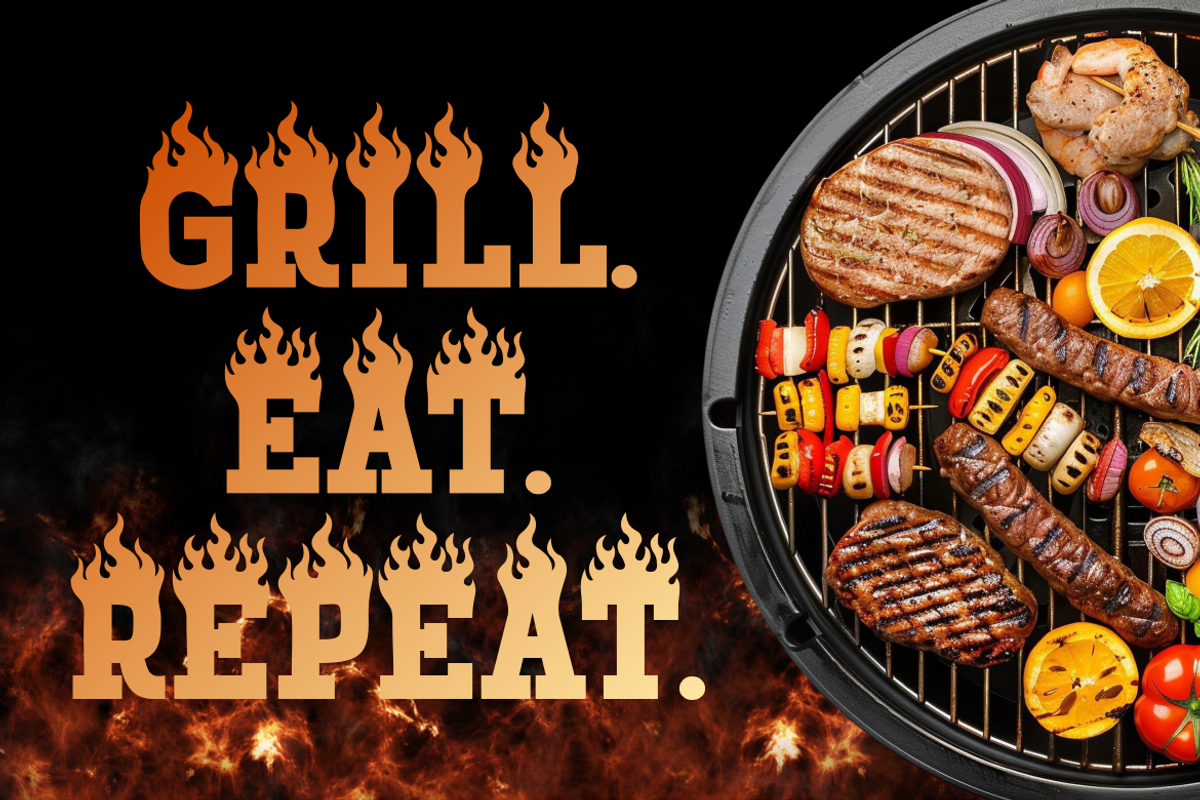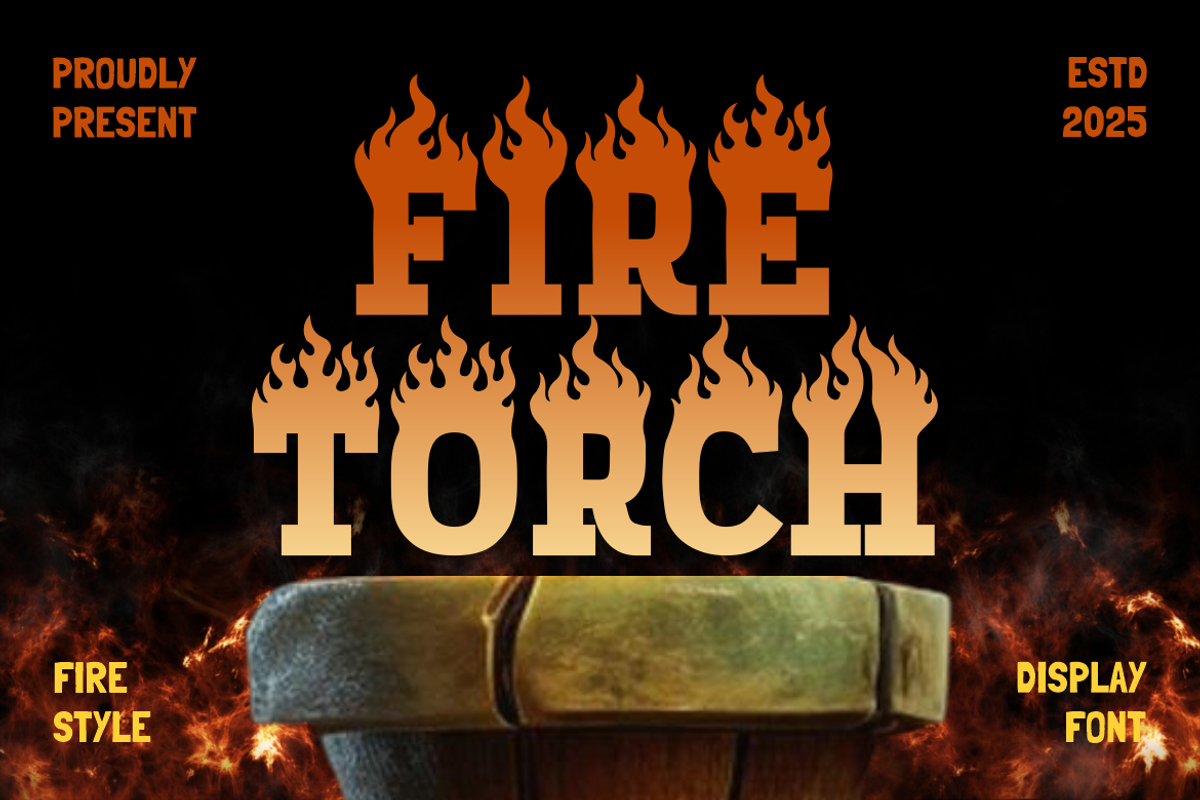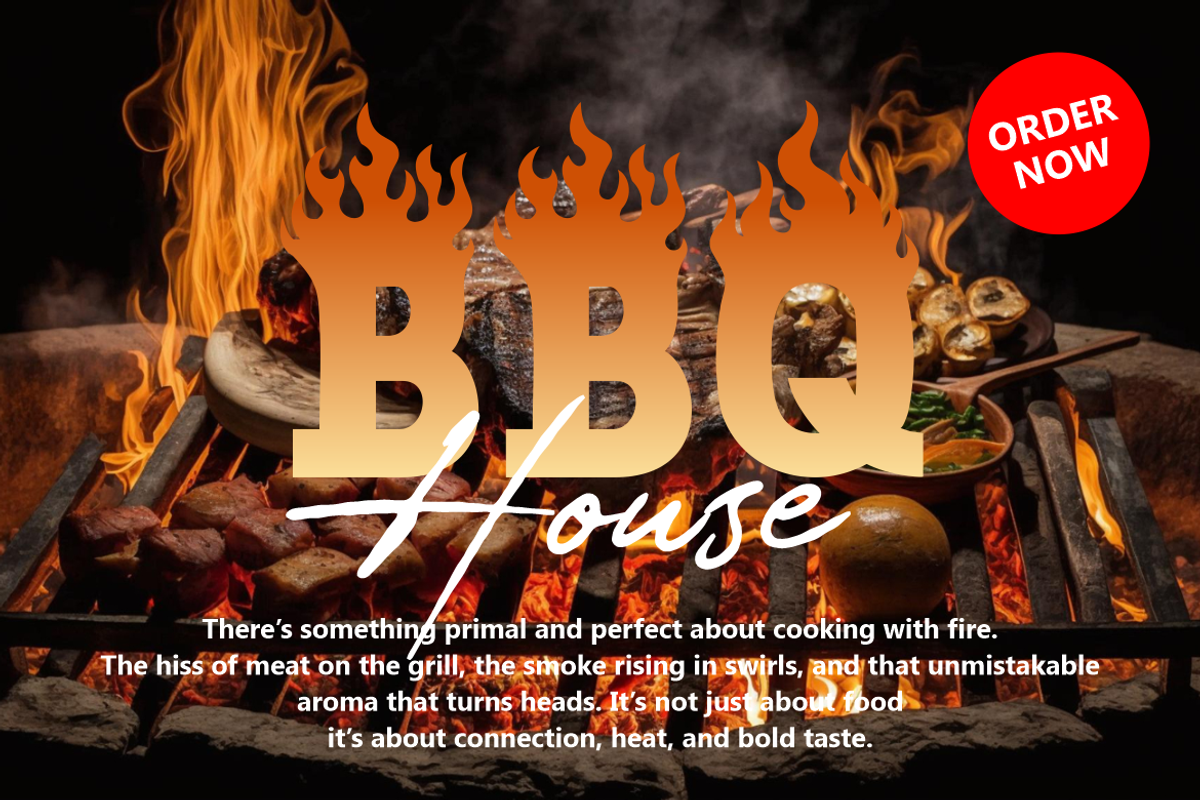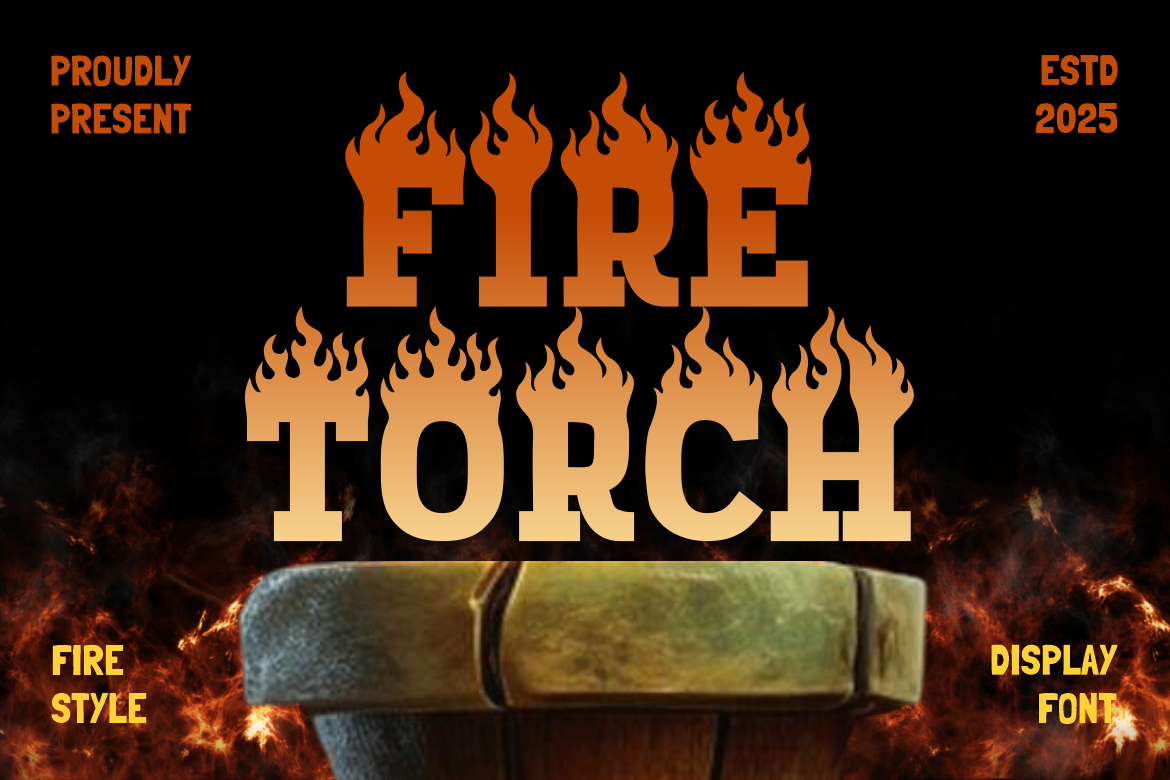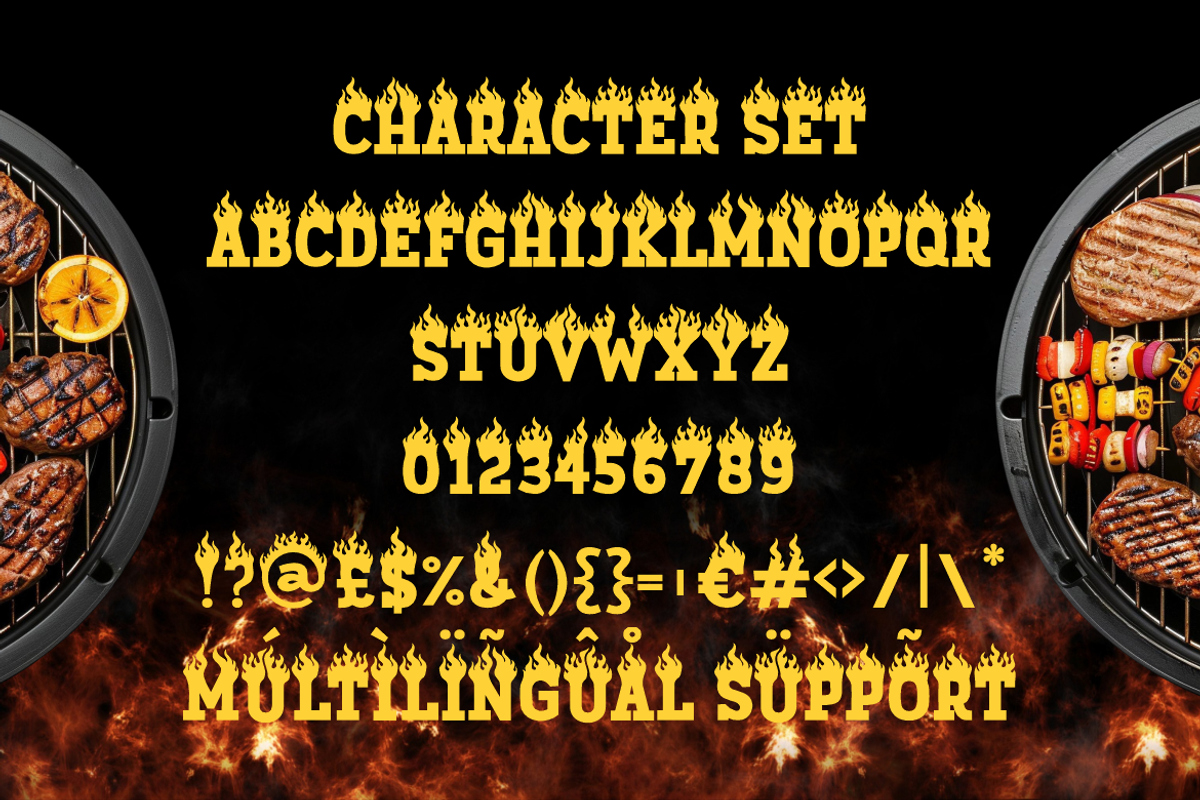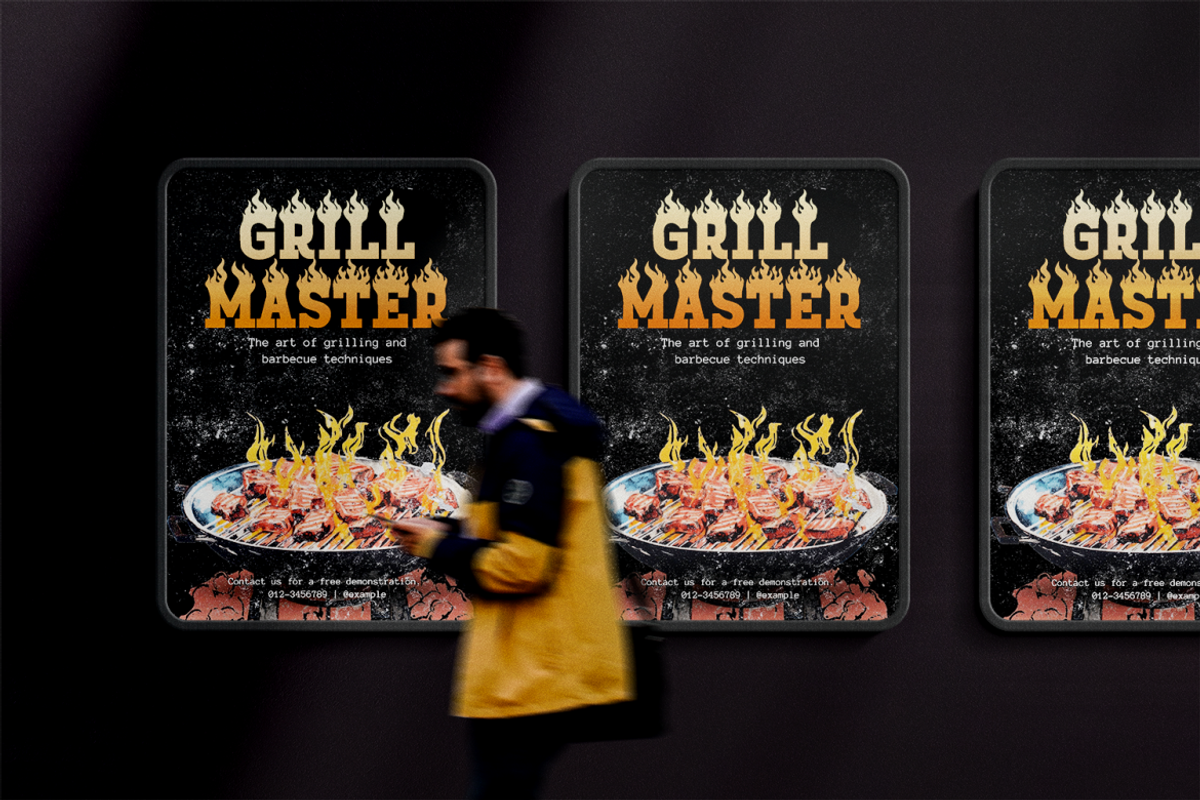
Fire Torch Flame Font
Fire Torch Flame Font delivers a powerful display style built for designs that need heat, strength, and dramatic impact. Its letterforms are tall, blocky, and heavy, giving each character a solid and commanding presence. The defining feature is the flame-inspired detailing on the top of every glyph, shaped with sharp curves and energetic movement. These flame strokes create a dynamic silhouette while keeping the structure readable and balanced. The font feels bold, rugged, and expressive, perfect for themes that embrace fire, grilling, heat, or strong emotional energy. Fire Torch Flame Font blends vintage display strength with a modern boldness that works beautifully for standout headings and themed branding.
This font is ideal for BBQ branding, grill restaurants, food promotions, advertising, posters, film titles, and bold packaging. Its heavy weight ensures strong visibility from afar, while the flame details add personality and thematic storytelling. Designers can use it for event posters, business logos, magazine covers, stickers, and signage that needs to evoke heat, intensity, and excitement. Fire Torch Flame Font offers a unique, thematic aesthetic that enhances any visual project with fierce confidence and dramatic flair. It’s crafted for creatives who want a typeface that immediately sparks attention and enriches every message with fiery attitude.